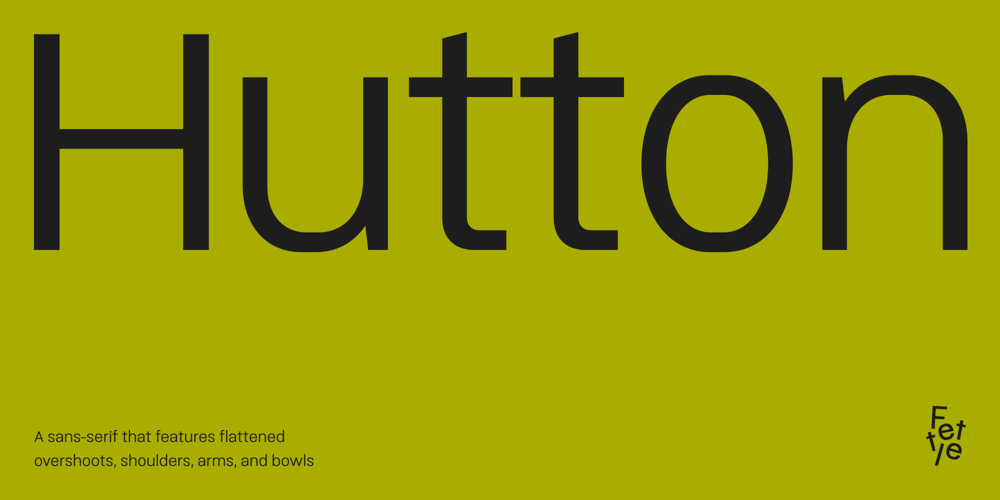
Hutton Font Family was designed by Thom Milson and published by Fettle Foundry. Hutton contains 14 styles and family package options. Hutton is a sans-serif typeface with flattened overshoots, such as shoulders, arms, and bowls. There are seven weights, from light to bold, with matching oblique italics.Inspired by using a ruler to write straight lines, and offering additional horizontality to characters, Hutton’s flattened bowls are intended to evoke a sense of flatness and retro influence – as if drawn at a drafting table.Featuring closed counters and low-contrast, Hutton is closely related to grotesque sans serif designs of the 20th Century, but with something a little different.Included is comprehensive European language support with contextual kerning on common diacritic combinations – as well as localised alternatives for languages such as Polish.Also included are two stylistic sets, which feature characters with a more geometric quality or a more humanistic quality, depending on which you would like to bring to your design.